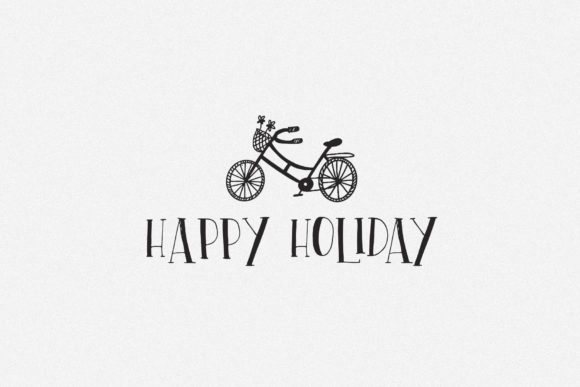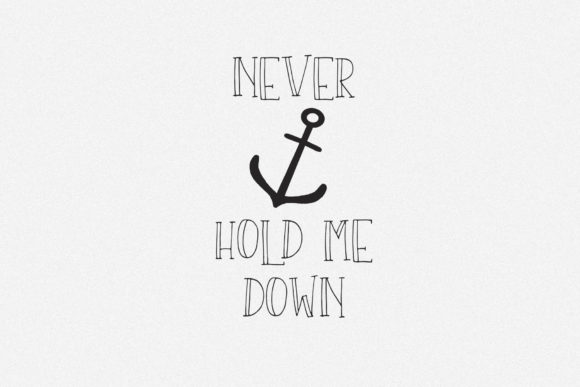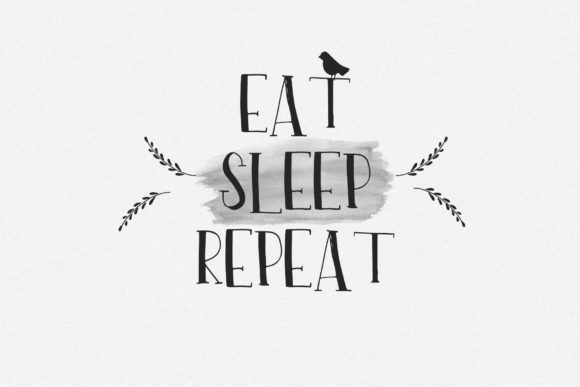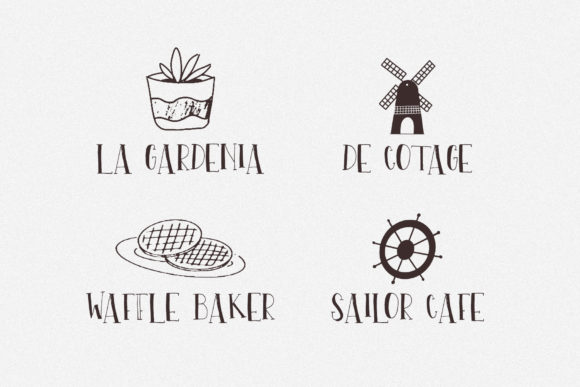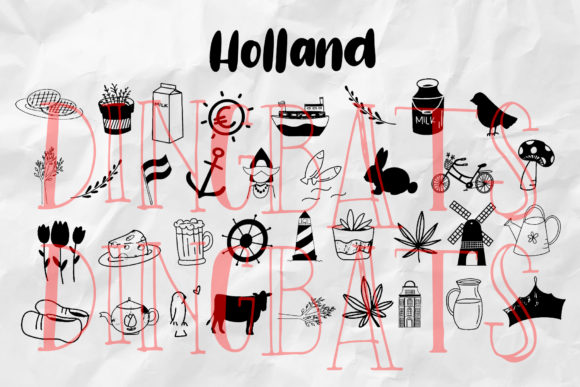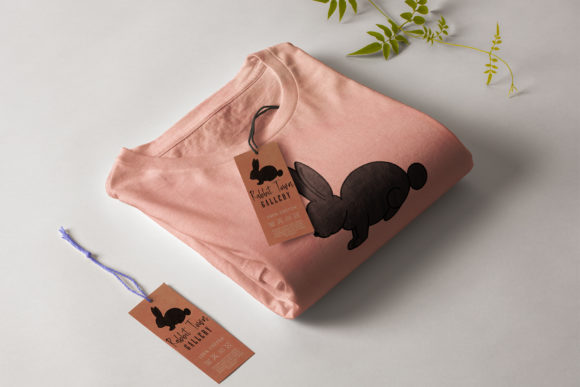
Introduction to Holland Dingbats Font
Have you ever stared at a blank page, trying to conjure up the perfect design element to bring your creative project to life? For designers, finding the right visual element can be the difference between a good design and a great one. That’s why we’re excited to introduce you to the Holland Dingbats Font, a high-quality design resource that’s about to revolutionize the way you work.
Imagine being able to add a touch of whimsy and personality to your designs with just a few keystrokes. The Holland Dingbats Font makes this a reality, offering 36 doodles that can be easily accessed by typing from A-Z (or a-z) and 0-9. Whether you’re working on a free download project or a high-end design, this font is a valuable addition to your toolkit.
Key Features of Holland Dingbats Font
- High-quality design resource ideal for creative projects, including logos, icons, and graphics.
- Unique, hand-drawn style with a transparent background, allowing for easy layering and customization.
- Includes a range of fun and playful symbols, perfect for adding a touch of whimsy to designs.
- Perfect for designers seeking a distinctive and eye-catching design element for their creative project.
Honest Review: Holland Dingbats Font
I recently stumbled upon the Holland Dingbats Font, and I must say, it’s a fantastic addition to any designer’s toolkit. As a design resource, this font is a high quality, versatile asset that can add a unique touch to any creative project.
- ✨ Transparent background, making it easy to layer with other elements
- ✨ A wide range of dingbat icons, from basic shapes to more intricate designs
However, I do have to mention a few limitations:
- ⚠️ Limited font size options, which may not be ideal for large-scale designs
- ⚠️ Some of the dingbat icons may not be as detailed as I would like, which could impact overall quality
Overall, I’m really impressed with the Holland Dingbats Font. It’s a great design resource that can add a lot of creativity to your projects. While it’s not perfect, the pros definitely outweigh the cons. If you’re looking for a free, high-quality dingbat font, I highly recommend giving the Holland Dingbats Font a try.
Holland Dingbats Font is a versatile design resource that offers a high quality collection of icons and symbols, perfect for creative projects. With a transparent background, these icons can be easily integrated into various designs.
To get the most out of Holland Dingbats Font, experiment with different combinations of icons and symbols to create unique and eye-catching designs.
Holland Dingbats Font is ideal for various creative projects, including:
- Illustrations